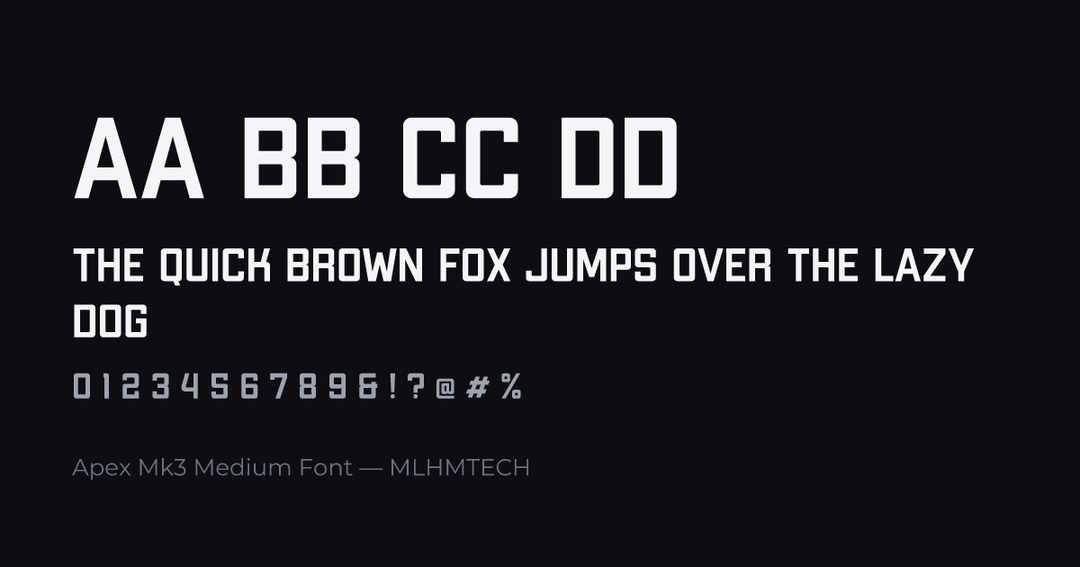
Apex Mk3 Medium Font
Apex Mk3 Medium is a clean, modern sans-serif font in OTF format. Ideal for headlines, branding, and creative projects.
Apex Mk3 Medium is a well-crafted sans-serif typeface that balances geometric structure with a subtle humanist touch. Its medium weight offers strong legibility while maintaining a contemporary aesthetic, making it suitable for a wide range of design applications.